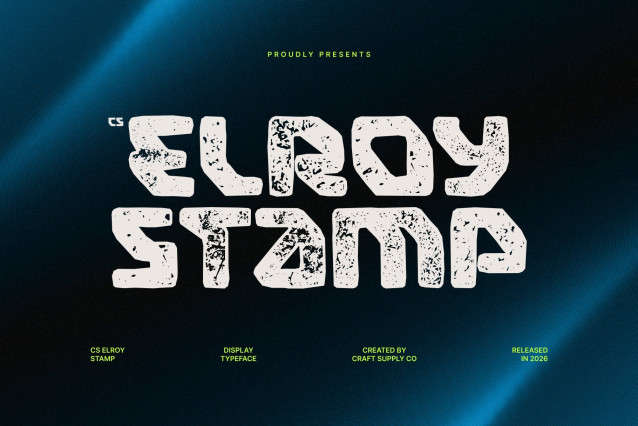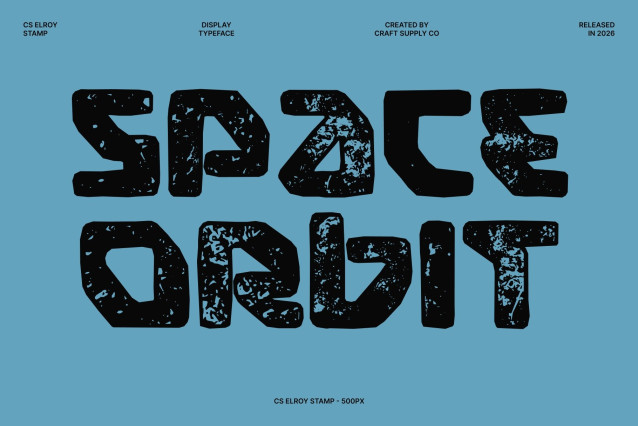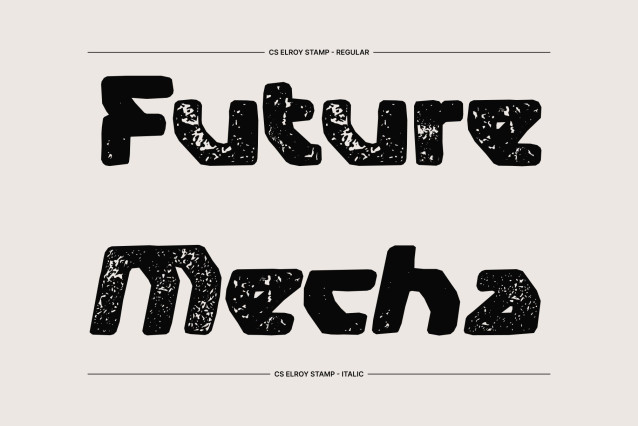
CS Elroy Stamp Font
CS Elroy Stamp – A Bold and Futuristic Techno Display Font
Cutting-Edge Style with Digital Precision
This font is a modern display font that captures the essence of tech innovation and futuristic design. With its bold form, sharp angles, and clean geometry, this typeface projects a high-tech, cutting-edge presence, ideal for pushing the visual boundaries of any design.
Engineered for the Future
Inspired by techno aesthetics and digital environments, each character in this font is meticulously designed with mechanical clarity and confident structure, giving off a sense of precision, speed, and modern intelligence. The font evokes futuristic machinery, cyberspace, and innovation, making it perfect for brands or visuals that aim to feel dynamic and visionary.
Stamp Texture with Retro-Tech Character
Enhanced with a distinctive stamp effect, this font gains a unique retro-futuristic personality. The textured, ink-pressed appearance introduces subtle imperfections reminiscent of industrial labeling and vintage tech prints, adding depth, authenticity, and an artistic worn effect that contrasts beautifully with its futuristic structure.